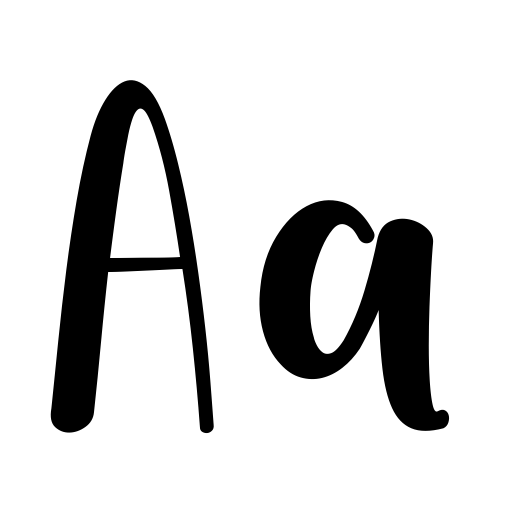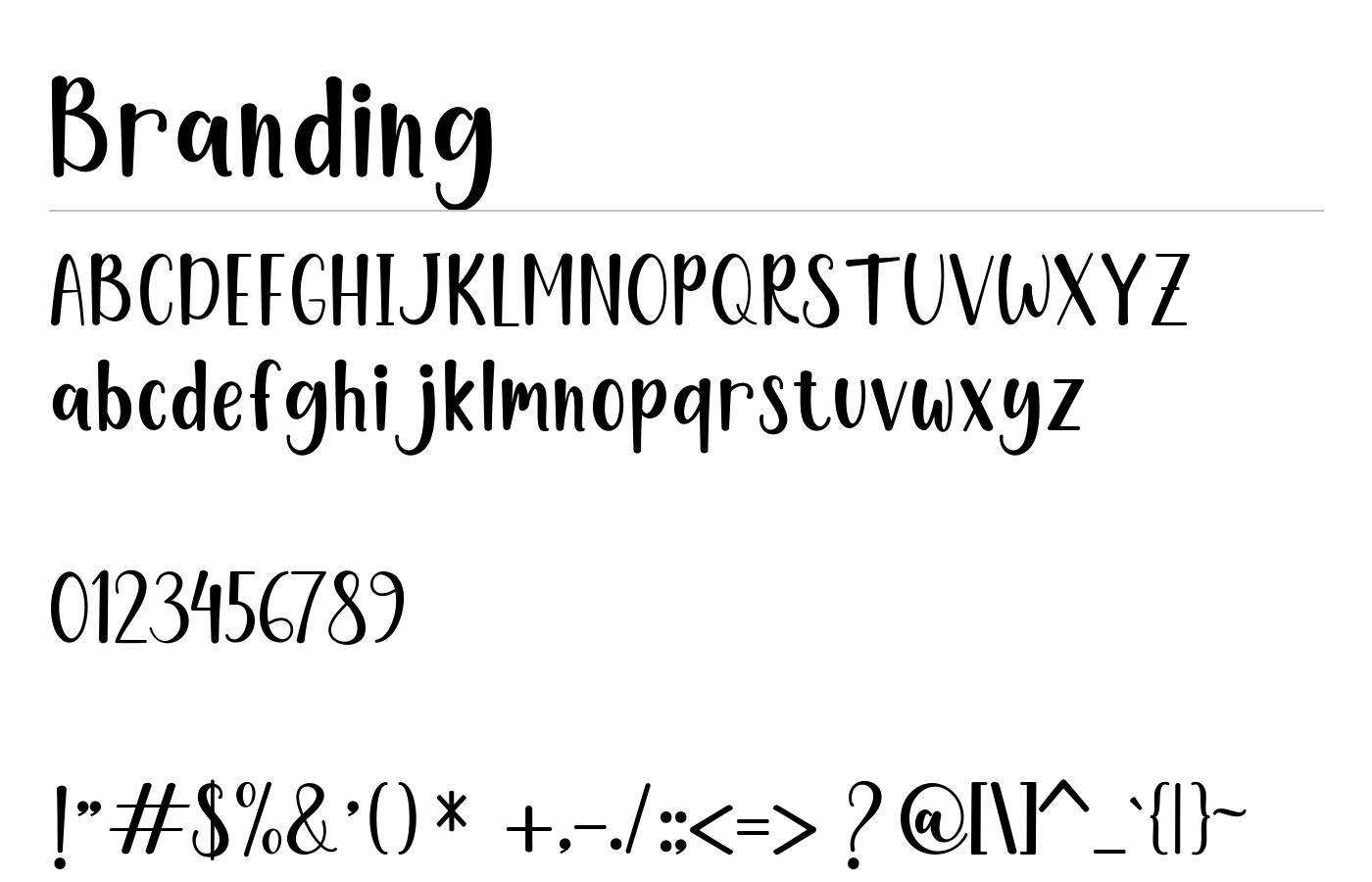
Branding Font is a charming, playful handwritten sans serif with a casual and friendly feel. Its tall, slightly narrow letterforms with smooth curves and consistent medium weight make it perfect for adding personality and warmth to creative projects, packaging, and informal branding. This font works well for logos, headlines, and social media graphics where an approachable and unique style is desired.
Branding Font